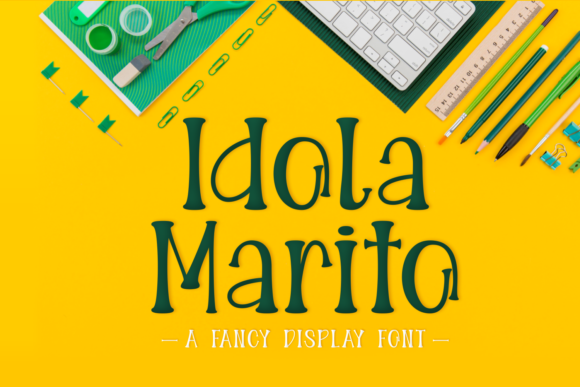
Introducing Idola Marito Font, a stunning and captivating display font family that will ignite your creativity and bring a touch of elegance and charm to all your design projects.
Indulge in the exquisite beauty of Idola Marito, a font that exudes sophistication and playfulness, with its graceful curves and enchanting glyphs. Step into a world of artistic expression where your imagination takes center stage, and let Idola Marito guide you through a journey of visual splendor.
With Idola Marito, you'll find endless possibilities for self-expression. Craft eye-catching logos that leave a lasting impression, design elegant wedding invitations that convey the heartfelt emotions of your special day, or create captivating social media posts that command attention. From personal branding to product packaging, Idola Marito is your trusted companion, adding a touch of uniqueness and flair to every project you undertake.
Unleash your creativity and embark on a design adventure with Idola Marito. Let your imagination soar as you explore the limitless potential of this versatile font. Whether you're a seasoned designer or just starting your creative journey, Idola Marito is your perfect partner, guiding you to create designs that resonate with your audience and leave them in awe.
So, why settle for ordinary fonts when you can have extraordinary? Experience the magic of Idola Marito today and elevate your designs to new heights. Embrace the beauty of creativity and let your imagination run wild with this captivating display font.